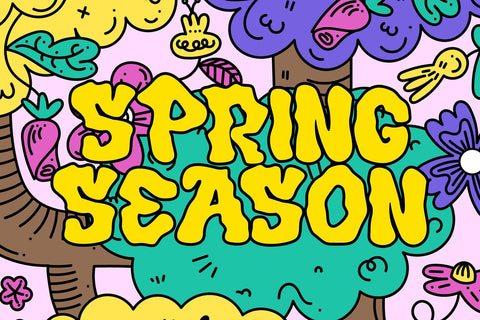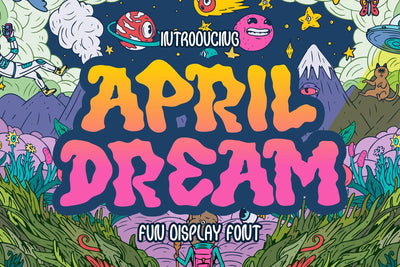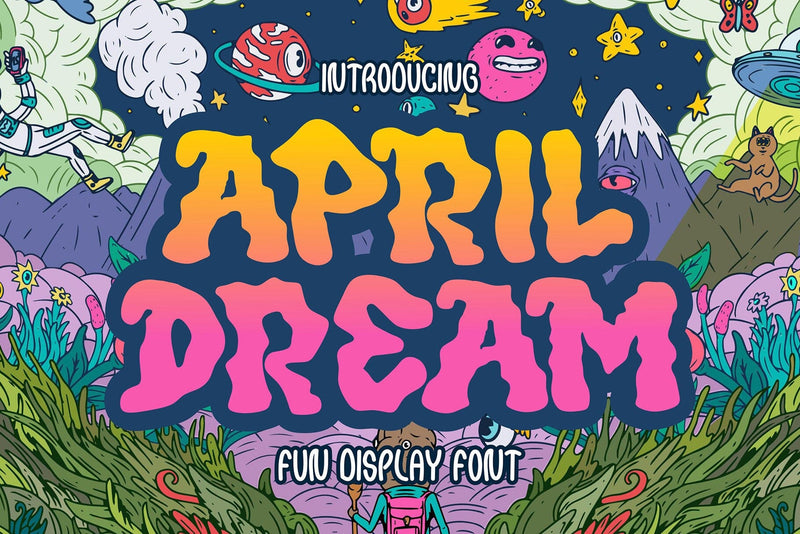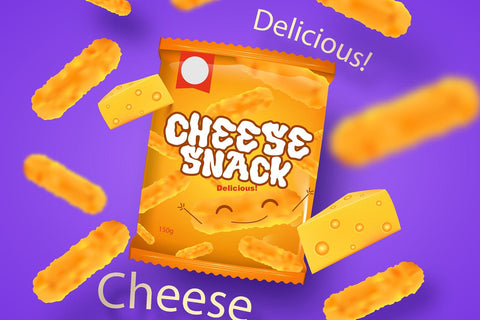
April Dream - Unique Display Font
"April Dream" is a delightful display font that radiates charm and creativity with its quirky and unique characters. Each letter is crafted to stand out, offering a distinctive and playful style that catches the eye. This whimsical typeface is perfect for adding a touch of creativity to any design project, from posters and invitations to branding and social media graphics. With its charming and dynamic appeal, "April Dream" brings a sense of fun and personality to your typography, making every word a playful expression of imagination.